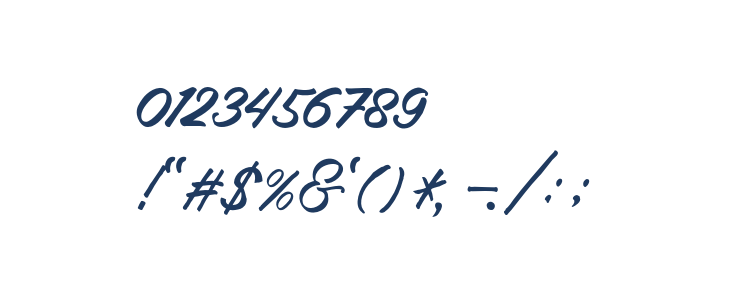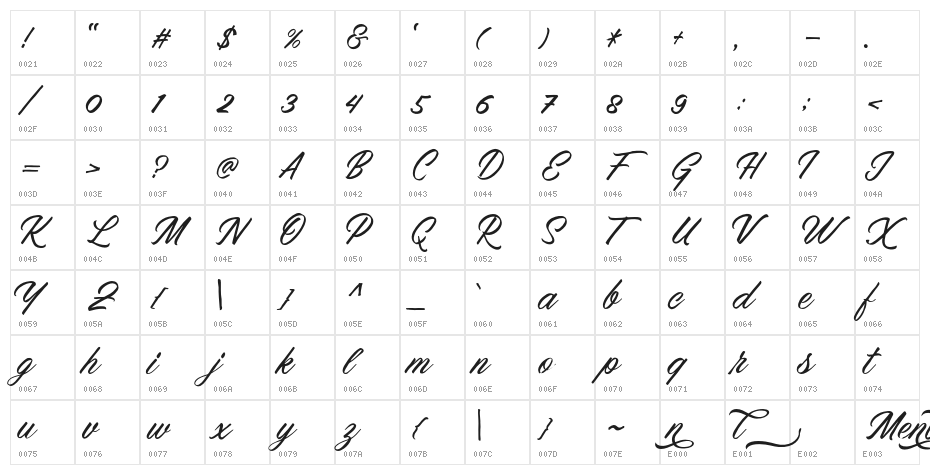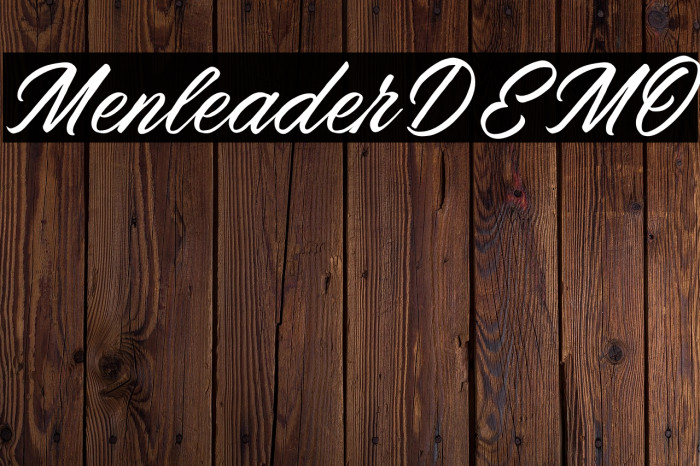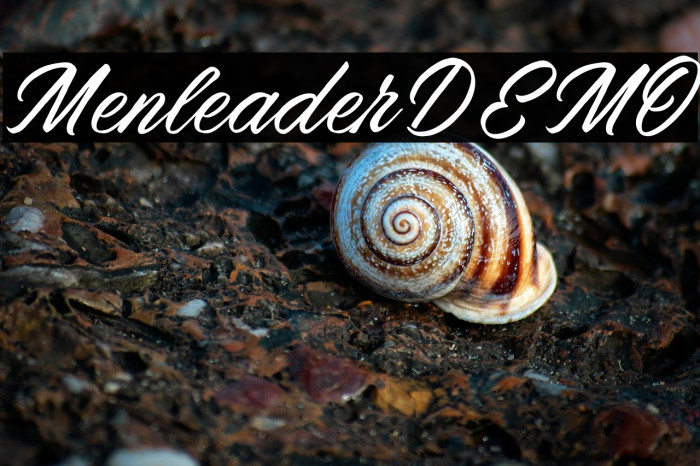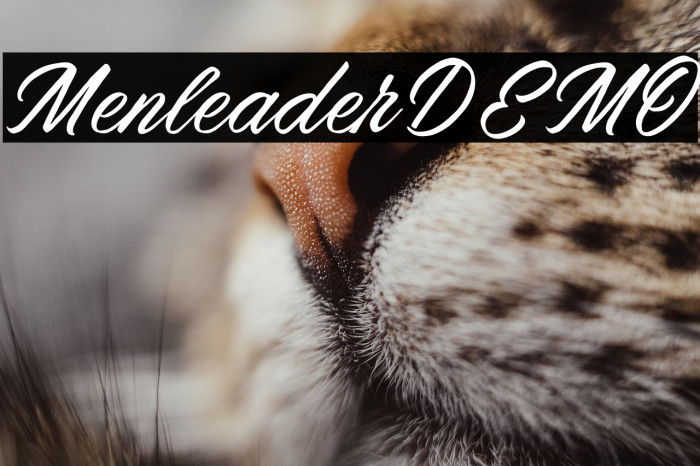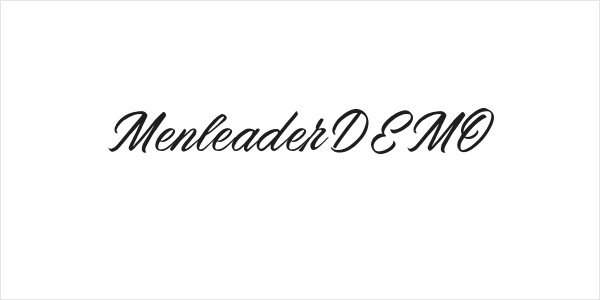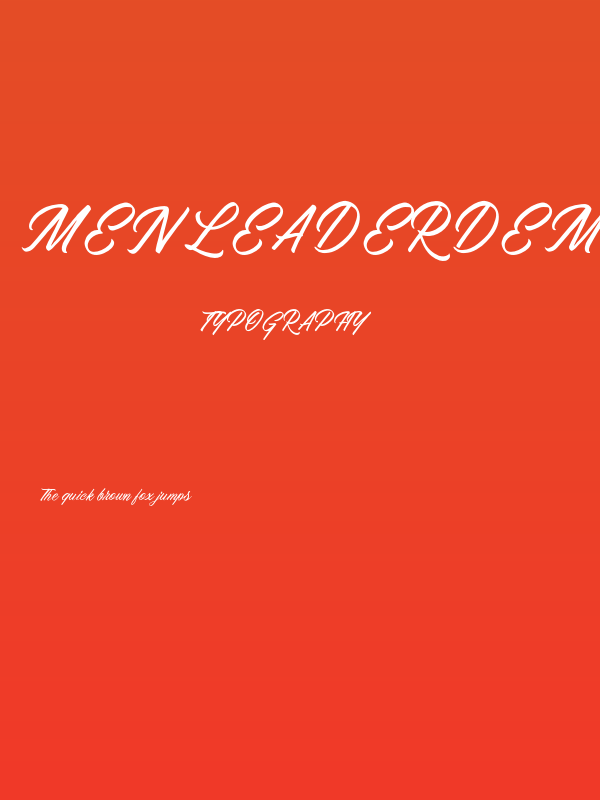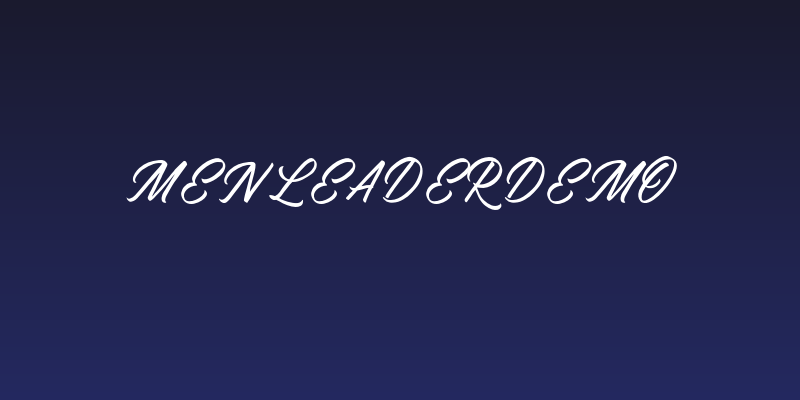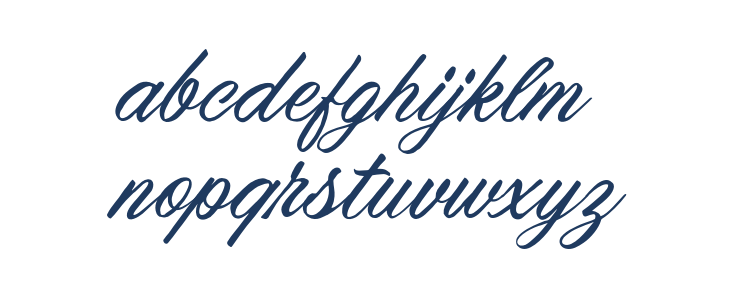
MenleaderDEMO Font
MenleaderDEMO Description
This font is a stylish and elegant script typeface that exudes a sense of sophistication and fluidity. The characters are connected in a flowing manner, reminiscent of traditional calligraphy, yet with a modern twist. The uppercase letters are bold and striking, while the lowercase letters maintain a graceful and smooth appearance. The numerals and special characters are designed to complement the overall aesthetic, ensuring consistency throughout. This font is perfect for projects that require a touch of elegance and class, such as wedding invitations, branding, and upscale product packaging.